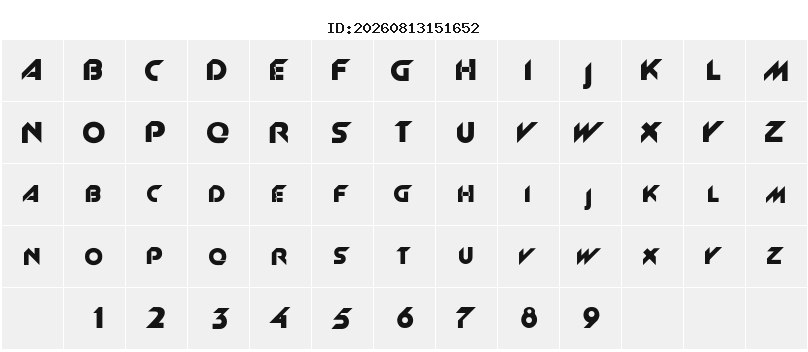
• Font Name: RSNewGarrett
About RSNewGarrett.ttf
RSNewGarrett.ttf is a modern, elegant sans-serif font designed for ultimate readability and visual harmony. Perfect for branding, headlines, web design, and print materials.